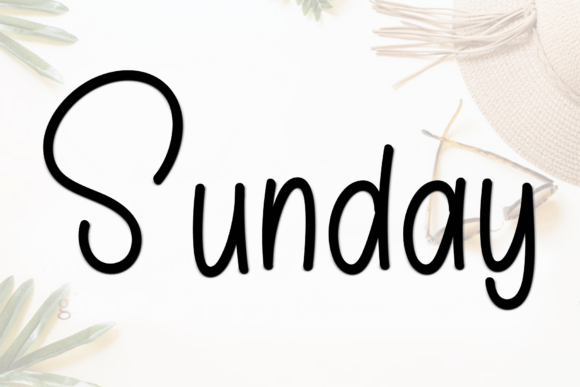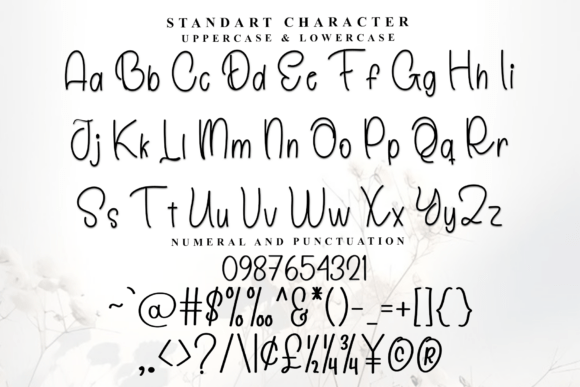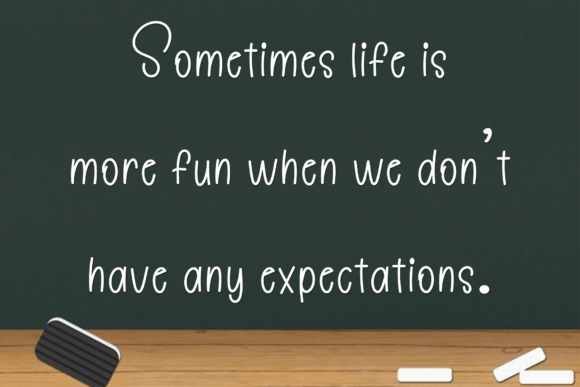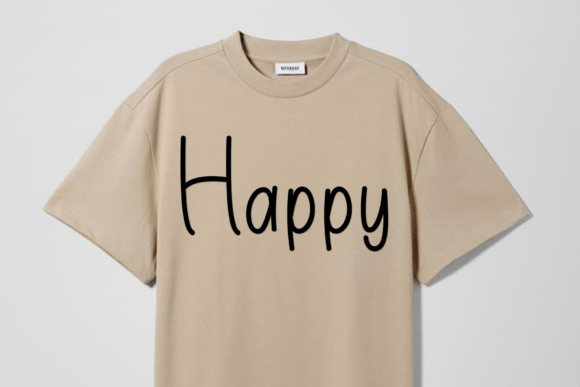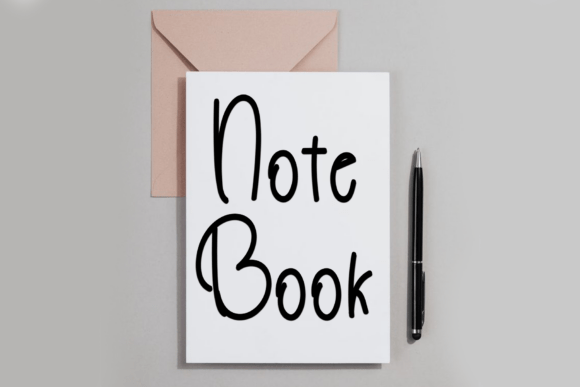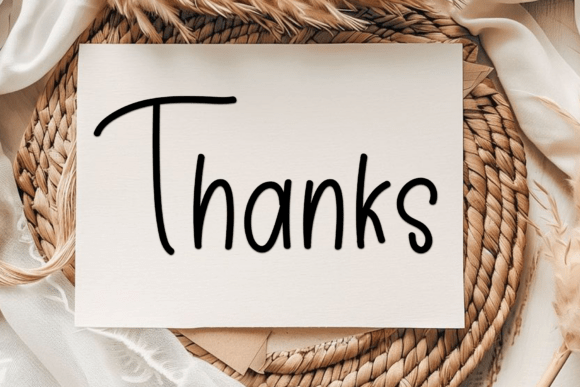
Carmille Font: Elevate Your Designs with a Unique and Versatile Typeface
In the world of typography, a font can make or break a design. It’s the perfect blend of form and function, conveying a message while captivating the audience. Carmille Font is one such typeface that has been making waves in the design community. With its soft, unique touch and distinctive strokes, Carmille is a beautiful and eye-catching font that’s perfect for a wide range of creative projects.
The Distinctive Character of Carmille Font
Carmille Font boasts a special character that sets it apart from other typefaces. Its soft and unique touch gives it a natural, effortless feel that’s perfect for designs that require a personal touch. The font’s distinctive strokes are carefully crafted to create a sense of elegance and sophistication, making it ideal for projects that demand a high level of creativity and flair.
One of the standout features of Carmille Font is its versatility. With a wide range of characters, this font is perfect for design projects, crafts, and other creative works. Whether you’re working on a logo, brochure, or website, Carmille Font is sure to make your designs stand out. Its unique character and natural feel make it an excellent choice for a variety of applications, from artistic and creative projects to commercial and marketing materials.
- Brochures and flyers
- Websites and social media graphics
- Stationery and business cards
- Crafts and DIY projects
The Benefits of Using Carmille Font
So, why choose Carmille Font for your design projects? Here are just a few benefits of using this beautiful and versatile typeface:
- Unique and eye-catching: Carmille Font’s distinctive strokes and soft touch make it a standout typeface that’s sure to grab attention.
- Versatile: With a wide range of characters, Carmille Font is perfect for a variety of design projects and applications.
- Elegant and sophisticated: Carmille Font’s natural feel and elegant strokes make it perfect for projects that demand a high level of creativity and flair.
Tips for Using Carmille Font
To get the most out of Carmille Font, here are a few tips to keep in mind:
- Experiment with different sizes: Carmille Font looks great in a variety of sizes, from large headings to smaller body text.
- Pair it with other fonts: Try pairing Carmille Font with other typefaces to create a unique and visually appealing design.
- Use it for emphasis: Carmille Font’s distinctive strokes make it perfect for emphasis, such as highlighting important information or creating a call-to-action.
Carmille Font is a beautiful and versatile typeface that’s perfect for designers and crafters looking to elevate their designs. With its soft, unique touch and distinctive strokes, this font is sure to make your designs stand out. Its compatibility with various applications and flexibility in use make it an excellent choice for a wide range of projects. Whether you’re working on a logo, brochure, or website, Carmille Font is sure to enhance your designs and appeal to a wide range of audiences.